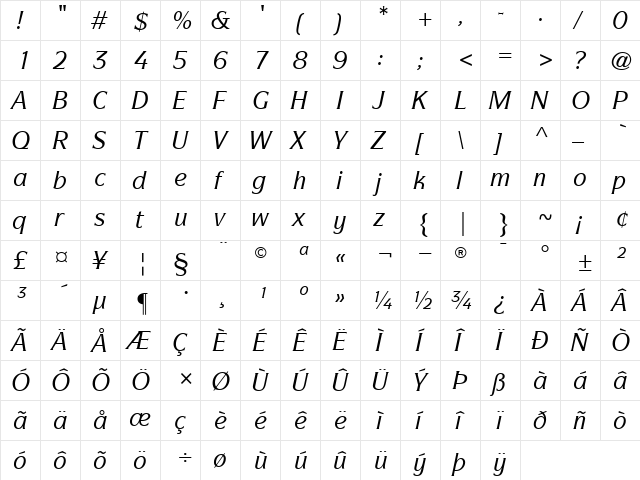
ITCSymbol-Medium MediumItalic
Design Context for ITCSymbol-Medium Typeface
ITCSymbol-Medium offers clean, dependable letterforms without strong stylistic allegiance, making it a practical choice for designers who need flexibility. The slanted form adds forward momentum and visual energy.